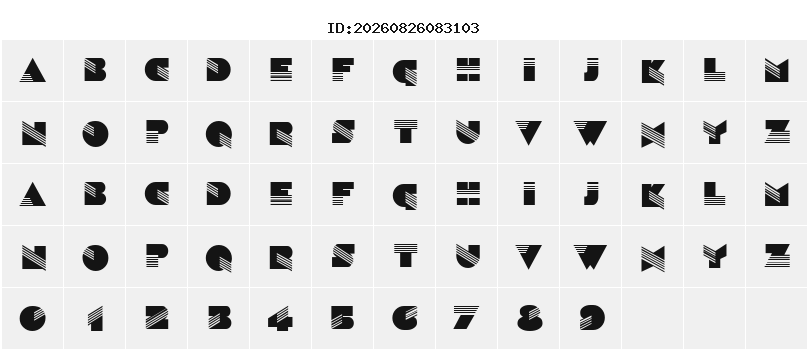
• Font Name: Wenatchee
Wenatchee.ttf is a modern, elegant sans-serif font designed for ultimate readability and visual harmony. Perfect for branding, headlines, web design, and print materials.